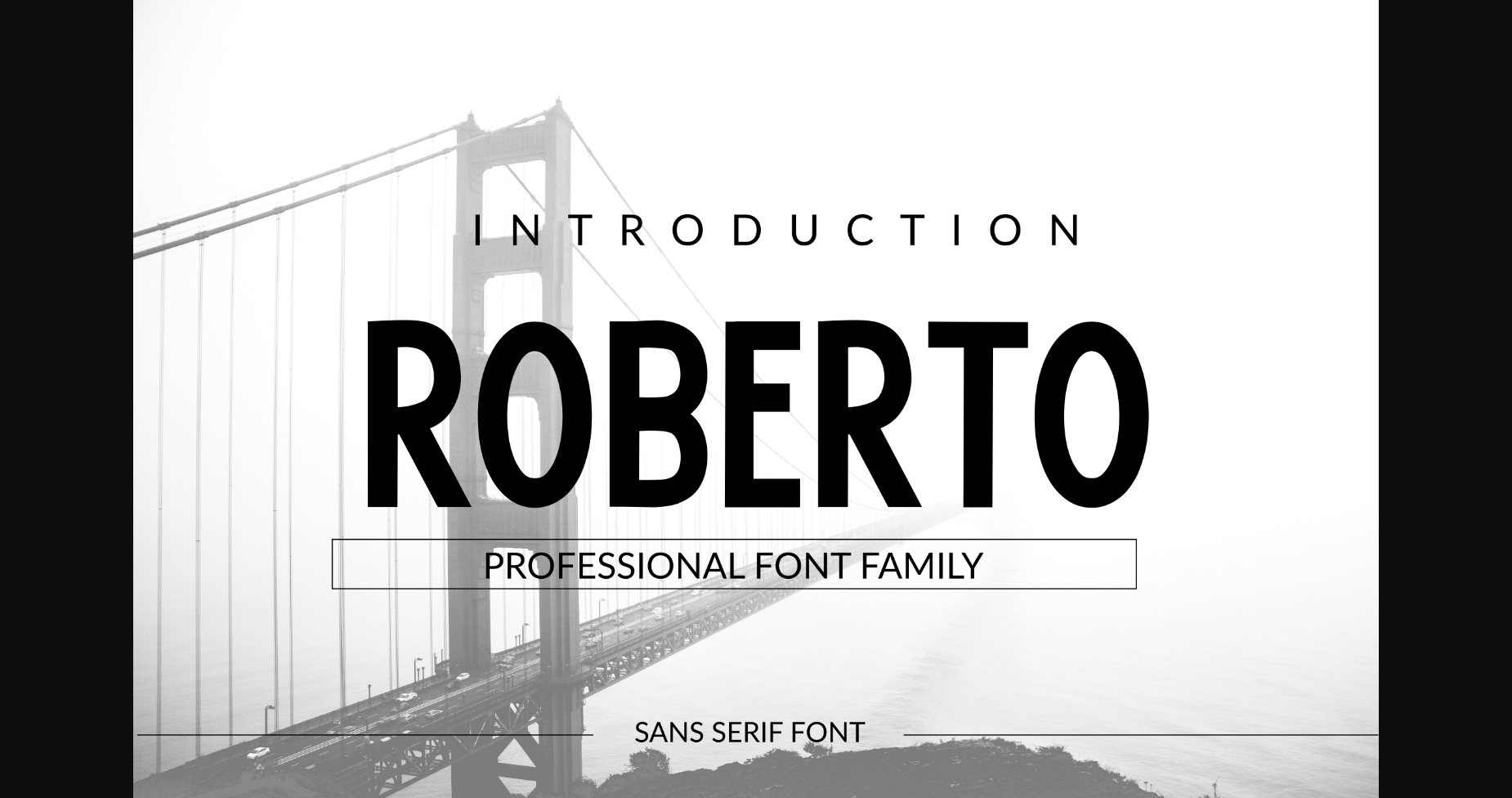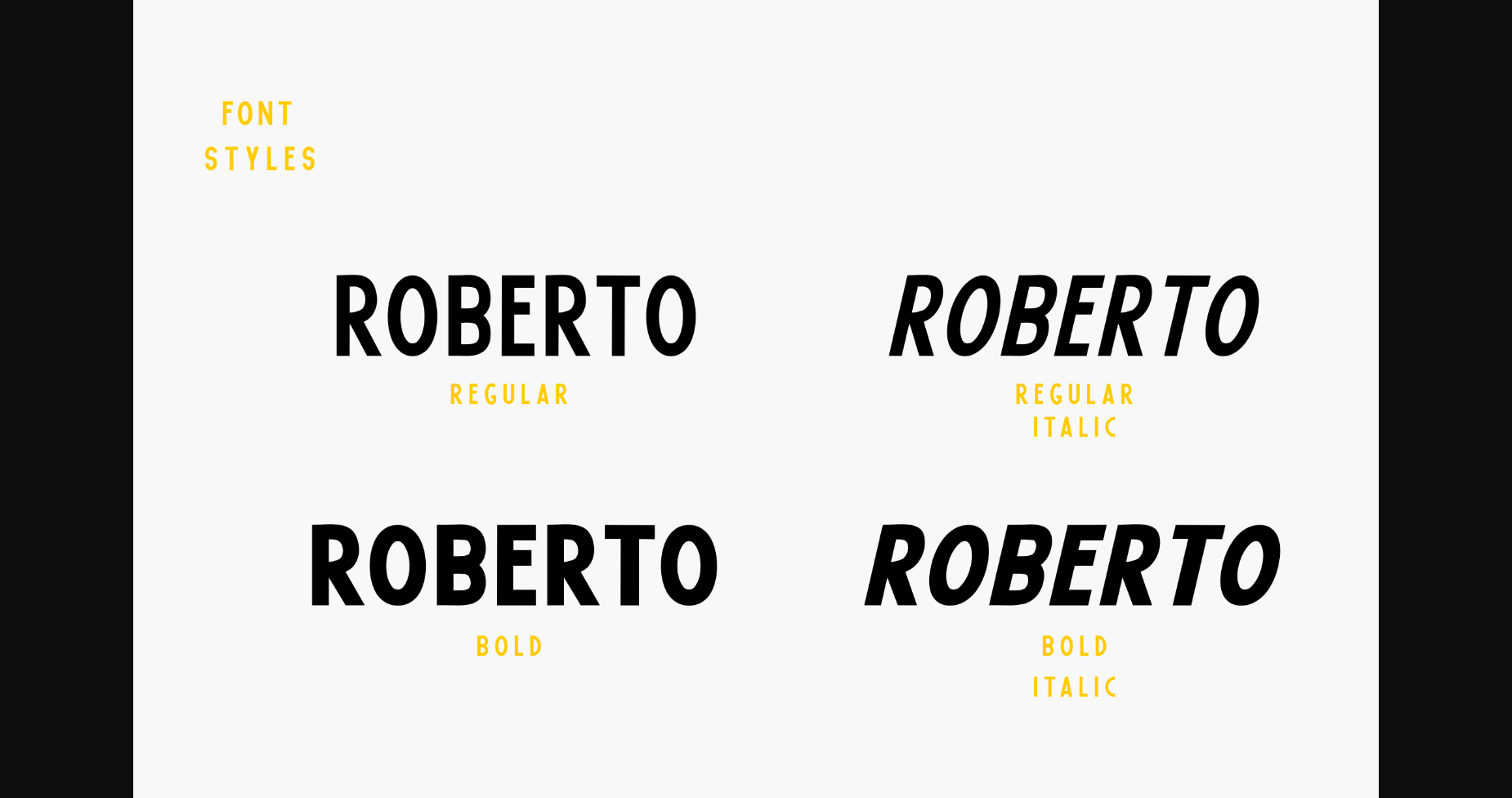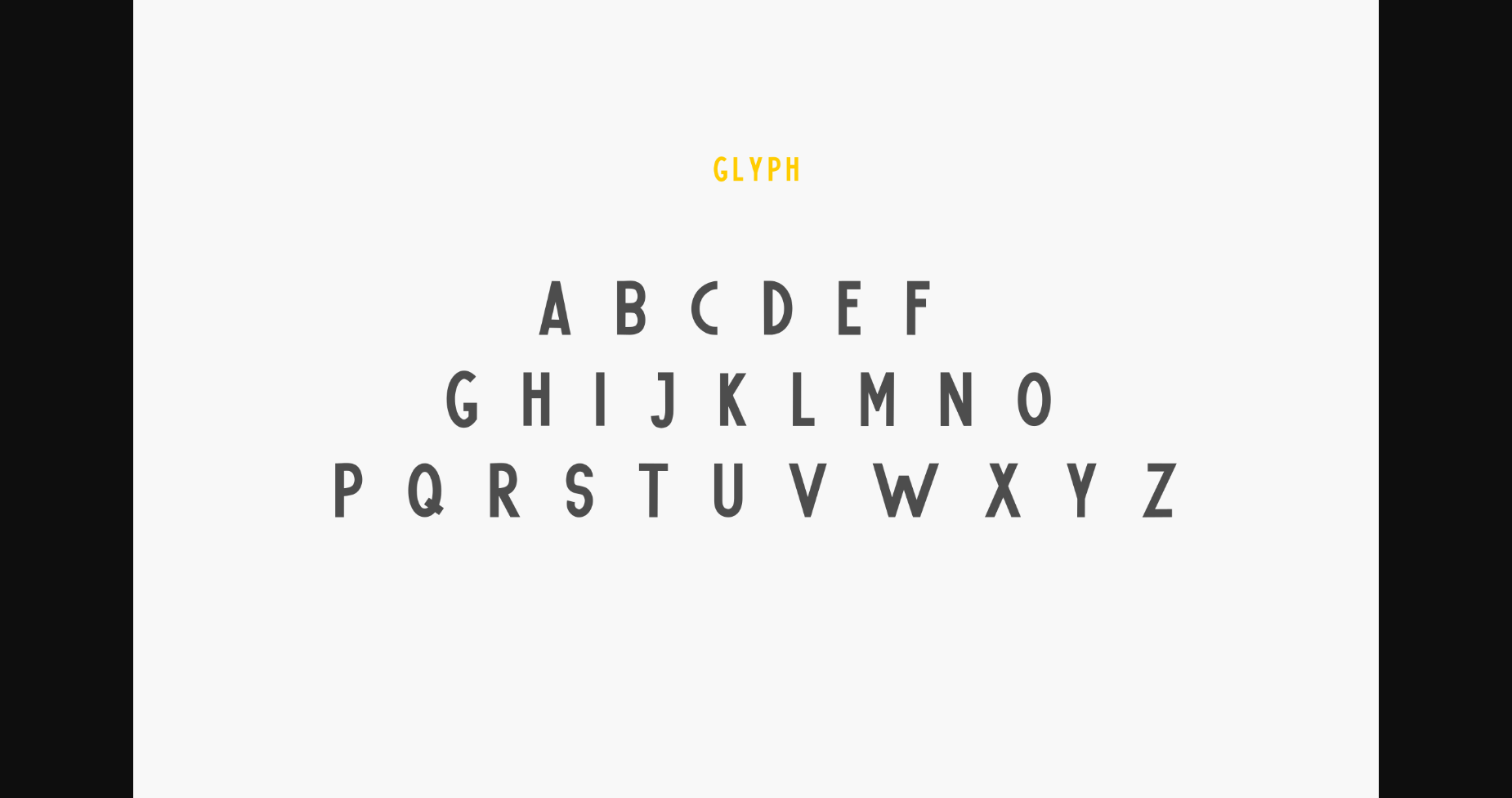
About Roberto Font
Roberto is an elegant and professional sans serif font. It can easily be matched to an incredibly large set of projects, so add it to your creative ideas and notice how it makes them stand out!